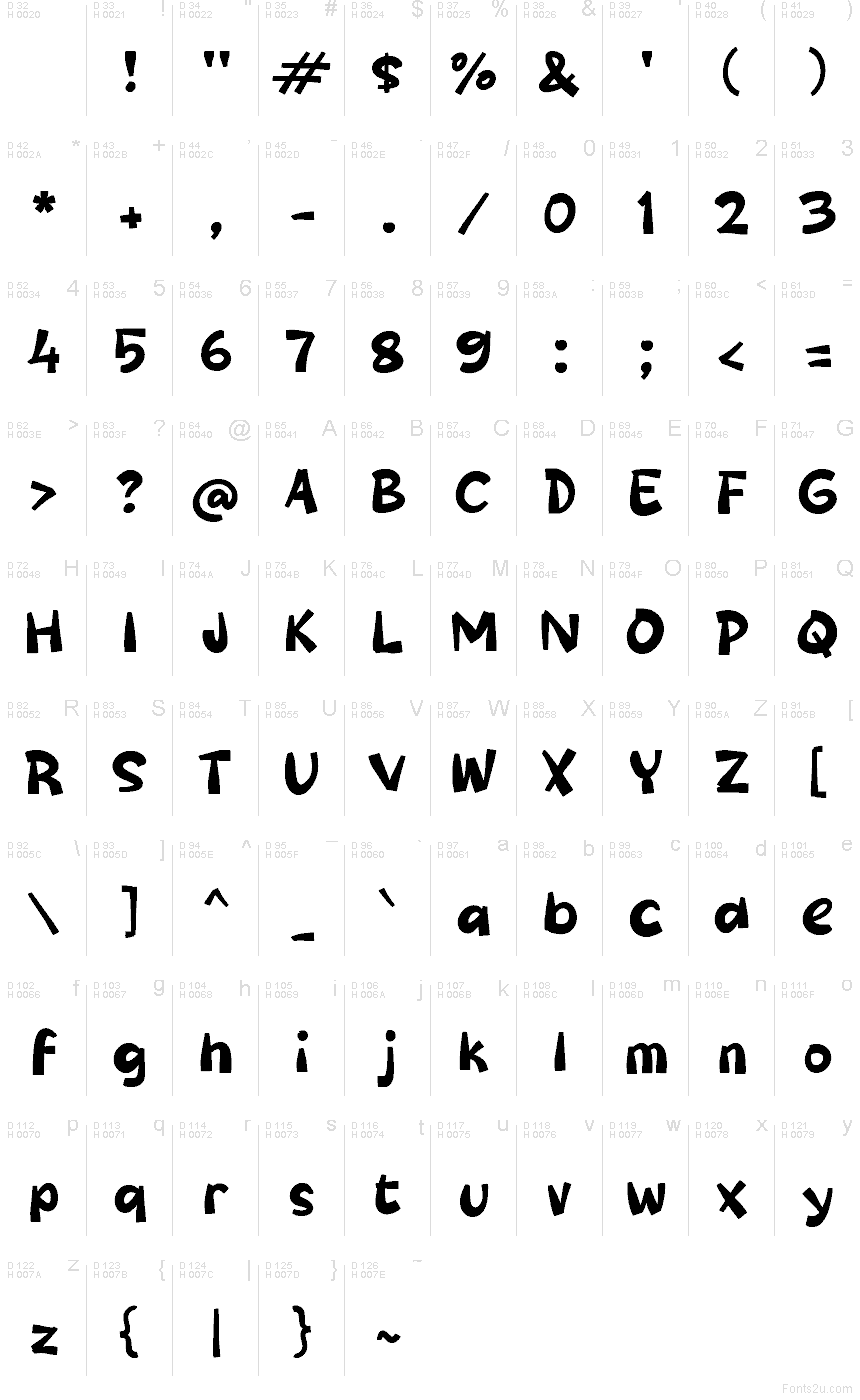
RAEAN
Raean font by wepfont.com is a free comic display typeface that feels like it was brushed straight onto the page. Its chunky, inky strokes wobble just enough to feel hand-drawn, while the bold weight keeps every letter easy to read at a glance. The rhythm is bouncy and friendly, giving headlines and short phrases that relaxed, doodled-on-a-notebook charm without looking messy or chaotic.
Using Raean, you can bring warmth and humor to children’s books, web comics, playful logos, YouTube thumbnails, posters, and greeting cards. This free font shines when you keep it big and give it generous spacing, letting the soft curves and irregular edges breathe. Pair Raean with a clean, light sans serif for body text to keep layouts readable while preserving its fun, sketchy personality.